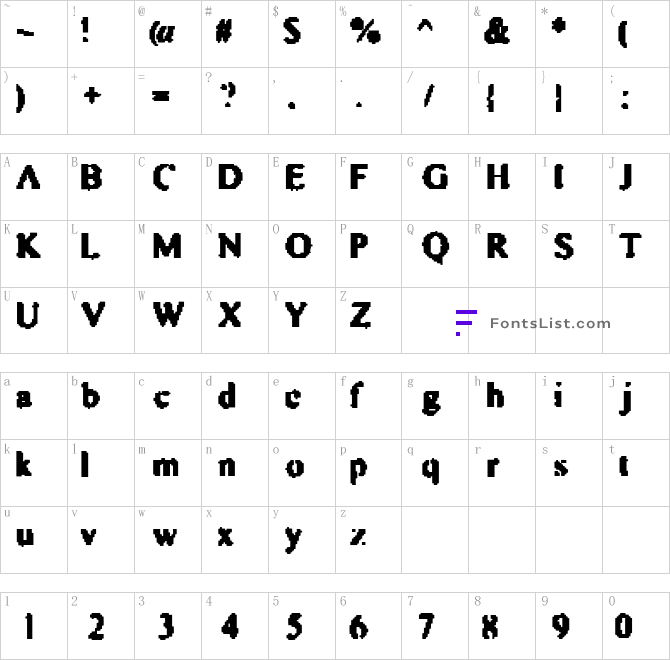
- Font Name:Astro Creep
Astro-Creep.ttf is a very beautiful artistic font, Astro-Creep.ttf is widely used in the design and printing of various books and pictures,Astro-Creep.ttf has a strong visual impact,Astro-Creep.ttf is a commonly used font in newspapers, magazines and books, and is used in posters, e-commerce Poster design, store design, logo design, font design and other fields.Astro-Creep.